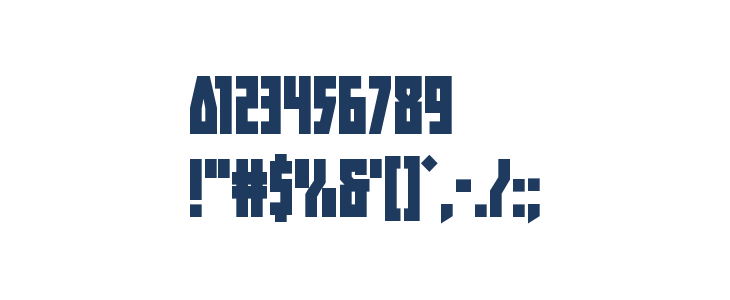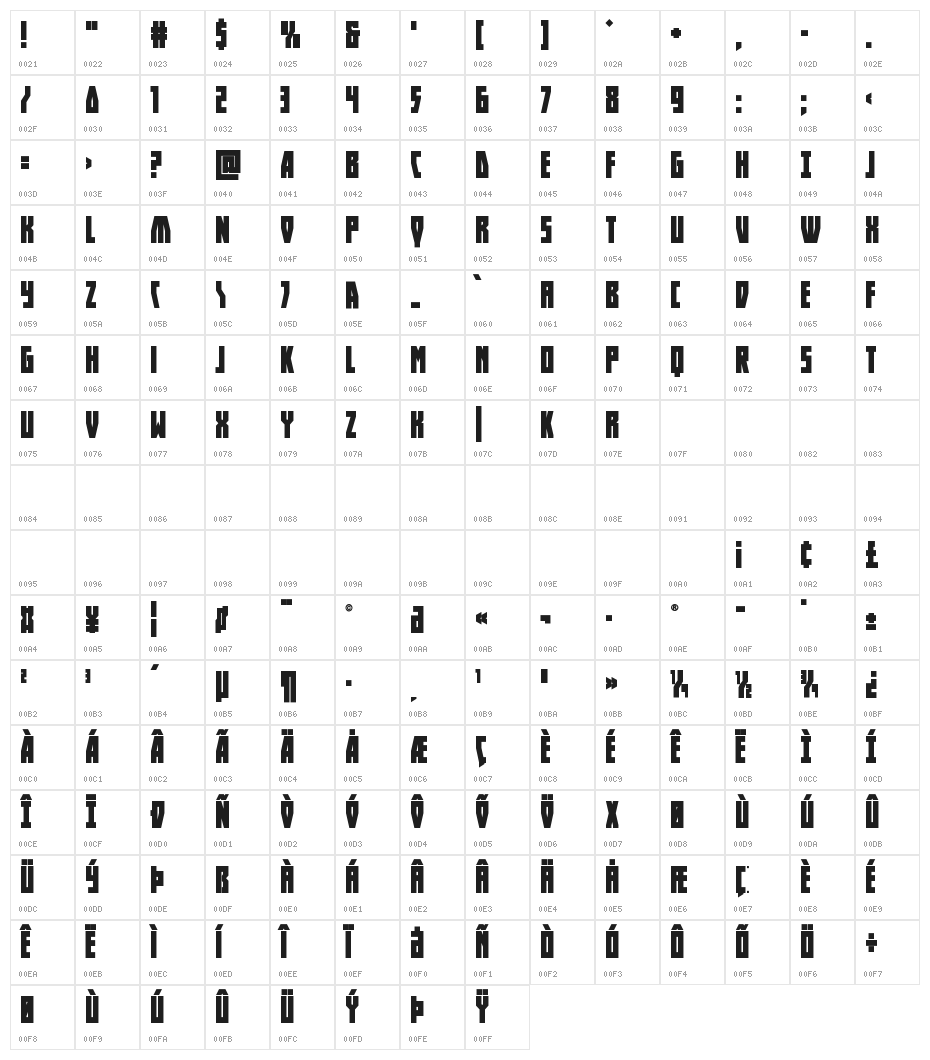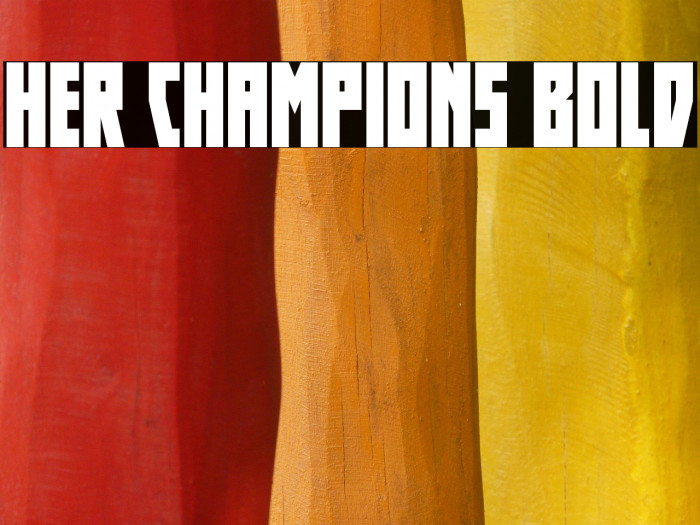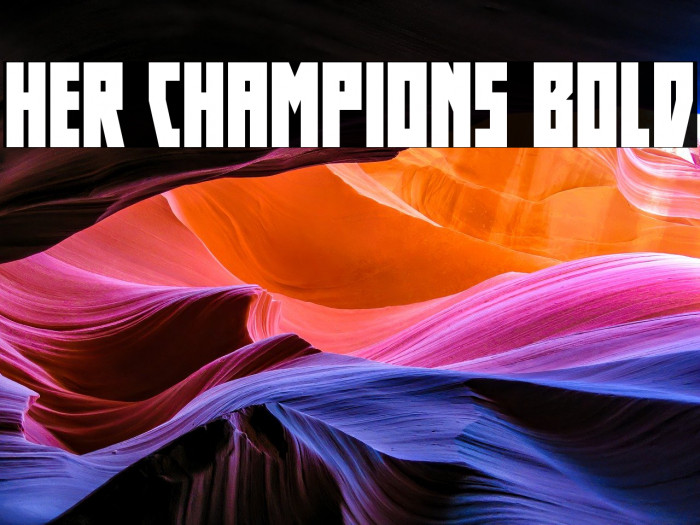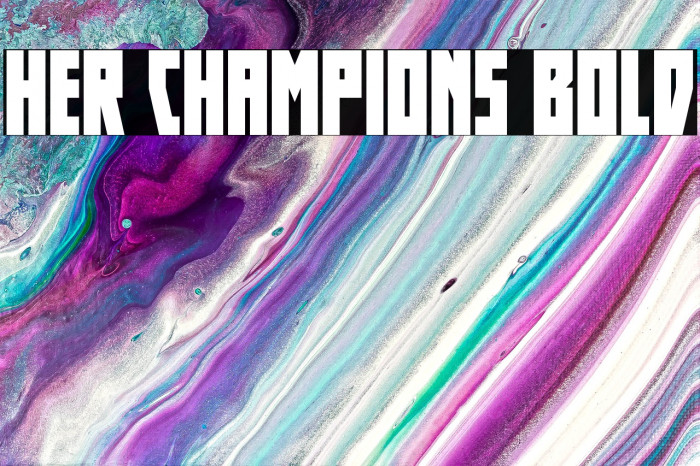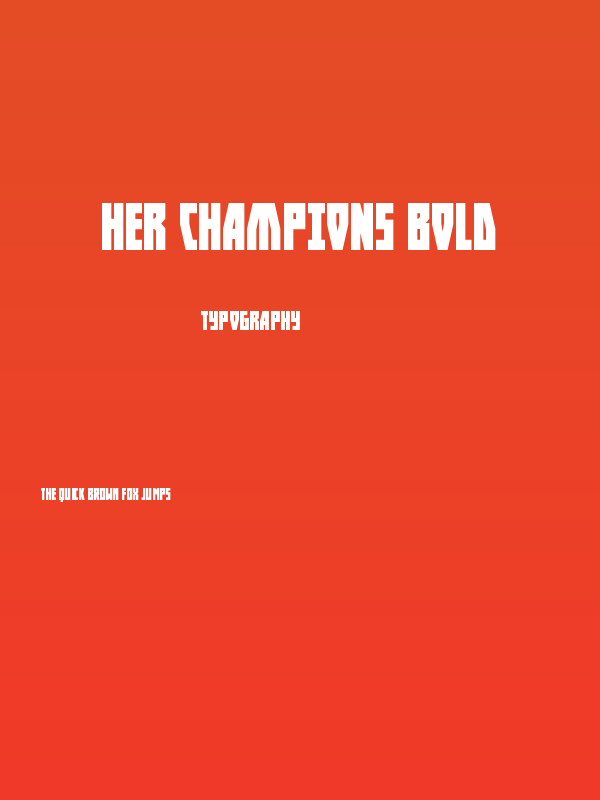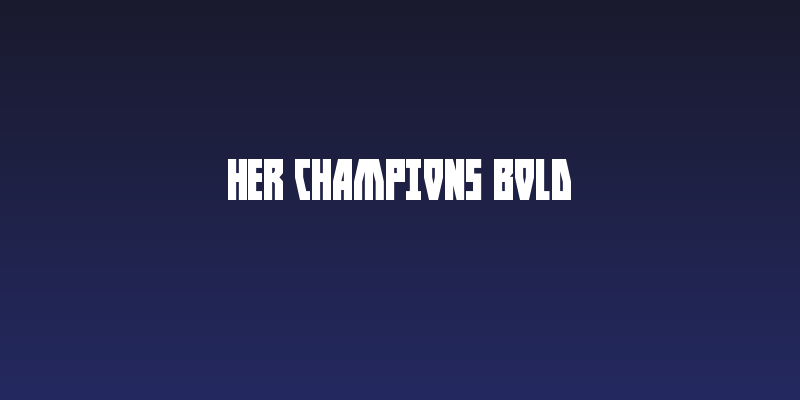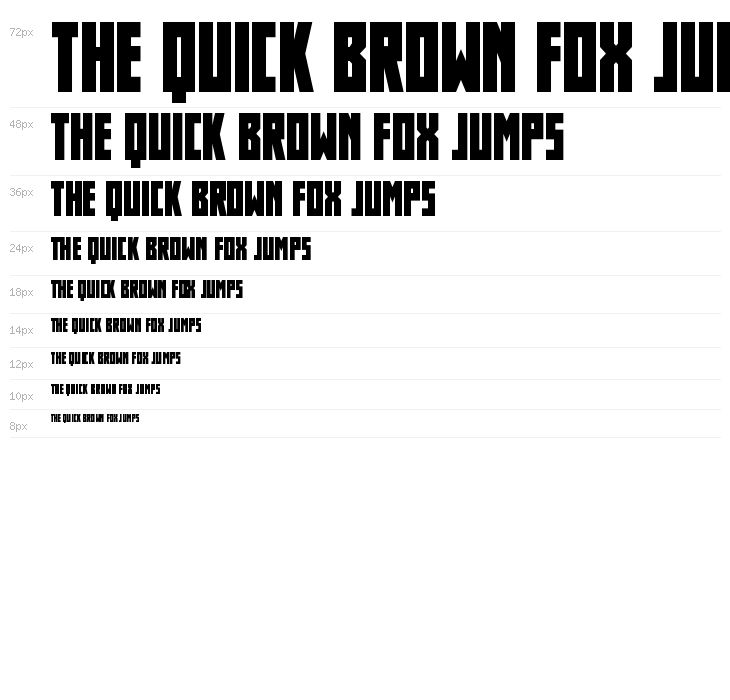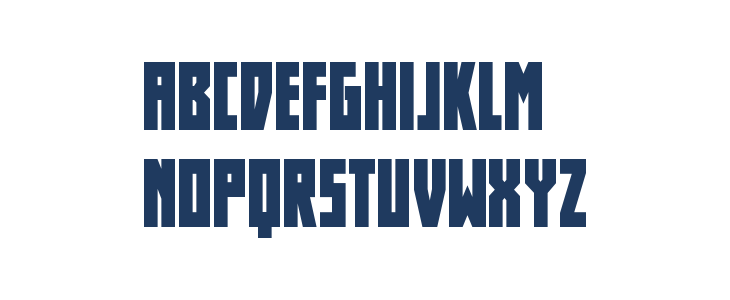
Her Champions Bold Font
Her Champions Bold Description
This font features a bold, geometric design with strong, angular lines and a commanding presence. The uppercase letters are particularly striking, with a blocky, almost architectural feel. The lowercase letters maintain the same boldness, ensuring consistency throughout the typeface. Numbers and special characters are equally robust, making them stand out in any design. The overall style is modern and assertive, ideal for making a strong visual impact.
Proposed ProjectsIdeal for sports branding, posters, headlines, and any project requiring a bold, impactful typeface.